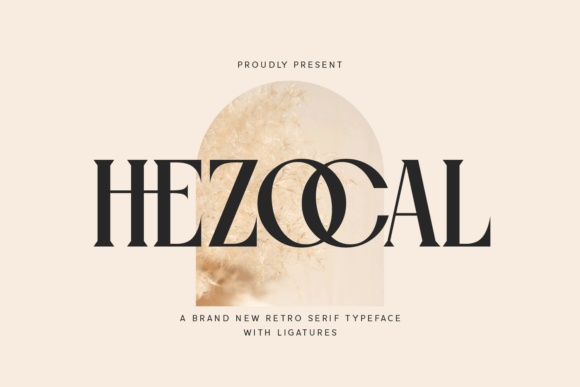
Introducing Hezocal Font: A Retro Serif Elegance
In the realm of typography, fonts play a crucial role in conveying messages, evoking emotions, and creating a lasting impression. Among the numerous fonts available, Hezocal stands out as a unique and captivating retro serif font. Its elegant curves, stylish ligatures, and vintage look make it an ideal choice for headlines, logos, and creative projects. In this article, we’ll delve into the world of Hezocal font, exploring its features, benefits, and applications.
The Story Behind Hezocal Font
Hezocal font is a carefully crafted typeface that pays homage to the classic serif fonts of the past. Its design is rooted in the principles of traditional typography, with a modern twist. The font features elegant curves, refined lines, and a distinctive character that sets it apart from other serif fonts. Hezocal’s vintage look is reminiscent of classic advertisements, newspapers, and magazines from the early 20th century, evoking a sense of nostalgia and sophistication.
Elegant Curves and Stylish Ligatures
One of the standout features of Hezocal font is its elegant curves and stylish ligatures. The font boasts beautifully designed curves that flow smoothly, creating a sense of continuity and harmony. The ligatures, which connect letters in a word, are meticulously crafted to enhance the overall design and readability of the text. These ligatures add a touch of elegance and sophistication, making Hezocal font perfect for high-end branding, advertising, and editorial projects.
The ligatures in Hezocal font are designed to connect letters in a way that creates a seamless flow, making the text more readable and visually appealing. This feature is particularly useful for headlines, titles, and short paragraphs, where the emphasis is on aesthetics and style. The elegant curves and ligatures of Hezocal font work in tandem to create a unique and captivating visual identity.
Vintage Look and Feel
Hezocal font’s vintage look and feel are undoubtedly its most striking features. The font’s classic serif design, combined with its elegant curves and stylish ligatures, creates a nostalgic atmosphere that evokes memories of a bygone era. This retro aesthetic makes Hezocal font perfect for projects that require a touch of nostalgia, such as:
- Branding and advertising campaigns with a vintage or retro theme
- Editorial projects, such as magazines, newspapers, and books, that aim to evoke a sense of classic sophistication
- Packaging design, labels, and signage that require a distinctive and eye-catching typography
Perfect for Headlines, Logos, and Creative Projects
Hezocal font is an excellent choice for headlines, logos, and creative projects that require a unique and captivating typography. Its elegant curves, stylish ligatures, and vintage look make it perfect for:
- Headlines and titles that require a touch of sophistication and elegance
- Logos and branding projects that need a distinctive and memorable typography
- Creative projects, such as posters, flyers, and brochures, that require a unique and eye-catching design
The font’s versatility and legibility make it suitable for a wide range of applications, from digital media to print materials.
Benefits of Using Hezocal Font
Using Hezocal font in your projects offers several benefits, including:
- Unique and captivating design: Hezocal font’s elegant curves, stylish ligatures, and vintage look make it a standout choice for any project.
- Improved readability: The font’s clear and legible design ensures that your message is conveyed effectively, making it perfect for headlines, titles, and short paragraphs.
- Versatility: Hezocal font is suitable for a wide range of applications, from digital media to print materials.
- Nostalgic appeal: The font’s vintage look and feel evoke a sense of nostalgia, making it perfect for projects that require a touch of classic sophistication.
Tips for Using Hezocal Font Effectively
To get the most out of Hezocal font, follow these tips:
- Use it sparingly: Hezocal font is best used sparingly, as a headline or title font, to create a lasting impression.
- Experiment with sizes and colors: Play with different sizes and colors to create a unique and eye-catching design.
- Pair it with other fonts: Hezocal font pairs well with other serif and sans-serif fonts, creating a harmonious and balanced design.
- Pay attention to kerning and tracking: Adjust the kerning and tracking to ensure that the text is legible and visually appealing.
In conclusion, Hezocal font is a unique and captivating retro serif font that features elegant curves, stylish ligatures, and a vintage look. Its nostalgic appeal, versatility, and legibility make it perfect for headlines, logos, and creative projects. By understanding the features and benefits of Hezocal font, you can effectively use it to create stunning designs that leave a lasting impression.
FAQs About Hezocal Font
Q: What is Hezocal font?
A: Hezocal font is a retro serif font that features elegant curves, stylish ligatures, and a vintage look.
Q: What is Hezocal font used for?
A: Hezocal font is perfect for headlines, logos, and creative projects that require a unique and captivating typography.
Q: Is Hezocal font legible?
A: Yes, Hezocal font is designed to be legible and readable, making it suitable for a wide range of applications.